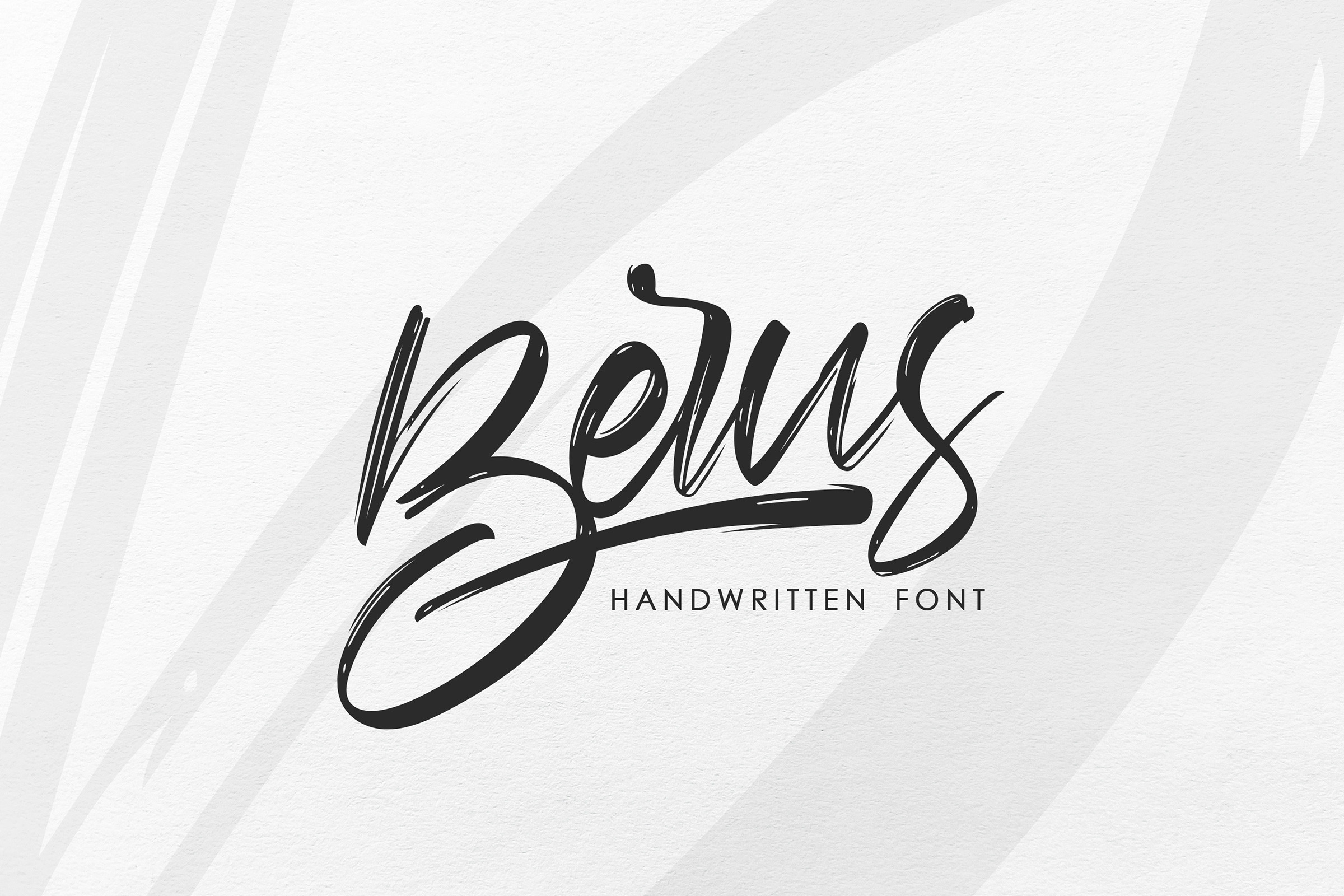
Berus. Handwritten brush Font
Berus - new fresh Handwritten textured brush font. Calligraphy lettering Font for headlines, posters, Logos, t-shirt designs, handwritten phrases, inscriptions for greeting cards and so much more.